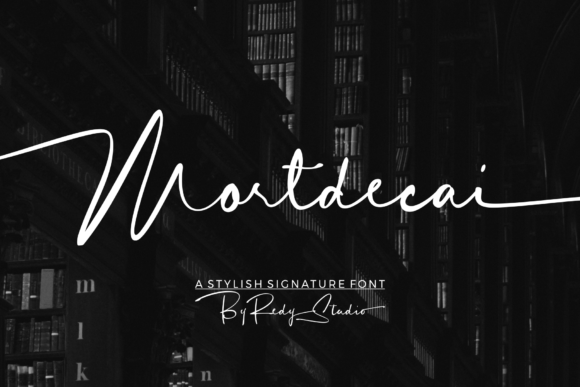
Step into a world of timeless elegance and captivating charm with Mortdecai, a handcrafted script font that breathes life into your designs. Its every letter, a stroke of artistry, dances across the page, evoking a sense of nostalgia and romance. Immerse yourself in the beauty of Mortdecai, where each glyph is a testament to the art of calligraphy, meticulously crafted to evoke emotions and leave a lasting impression.
With Mortdecai, transform your creative endeavors into masterpieces. Its enchanting curves and graceful lines bring a touch of sophistication to invitations, wedding stationery, branding, and social media designs. Whether you're a seasoned designer or a passionate hobbyist, Mortdecai will elevate your projects to new heights of elegance.
Journey through history with Mortdecai, a font inspired by the enduring charm of handwritten letters. Its vintage aesthetic conjures images of love letters penned with care, heartfelt notes adorned with flourishes, and timeless tales etched in ink. Embrace the allure of Mortdecai, and let your designs exude a sense of authenticity and warmth.
Unleash your creativity with Mortdecai, a font that knows no bounds. Its versatility shines through various design genres, from classic to contemporary, playful to sophisticated. Experiment with different styles, colors, and compositions to create designs that resonate with your unique vision. Let Mortdecai be your muse, guiding you toward designs that captivate and inspire.